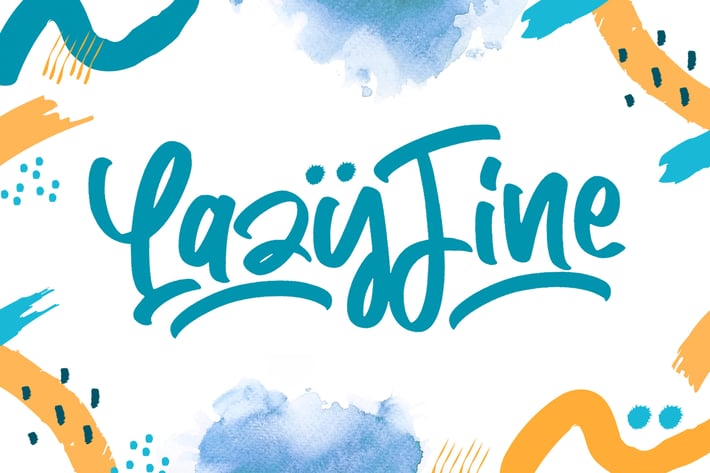
Lazy Fine - Quirky Display Font
Introducing Lazy Fine - Quirky Display Font
Lazy Fine is a flowing handwritten and quirky display font, described by an elegant touch, perfect for your favorite projects. Fall in love with its incredibly distinct and timeless style and use it to create spectacular designs!